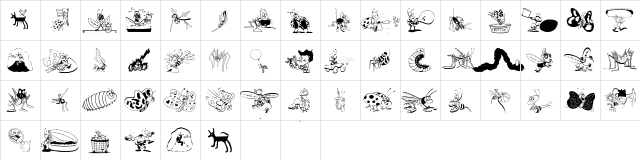
OurLittleDarlings-One Regular
OurLittleDarlings-One is a composed and adaptable typeface that performs quietly and consistently across a wide range of design contexts.